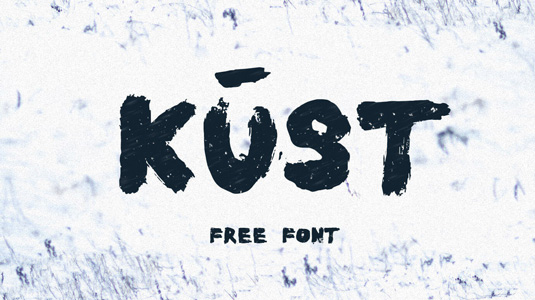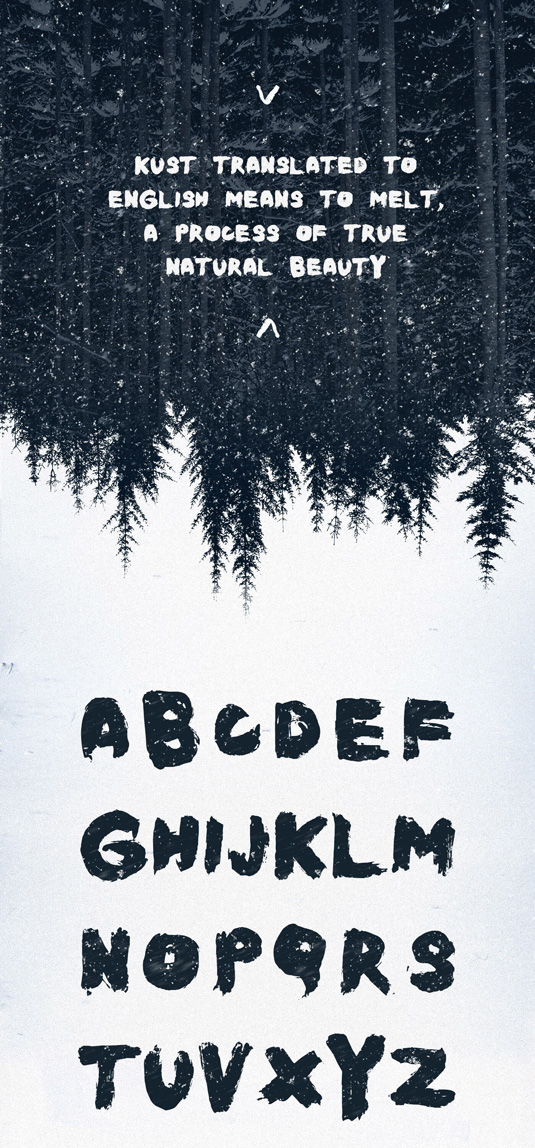
Font of the day: Kust
Every day we showcase the best fonts on the web. Today it's Kust by Ieva Mezule, which is free to download.
Kust by Ieva Mezule
Today's typeface of choice is Kust, written by fashion designer and painter Ieva Mezule. The letters were drawn on hard paper with a thick brush using pure black ink. Featuring 80 characters, every letter has a unique structure, with a distorted look.